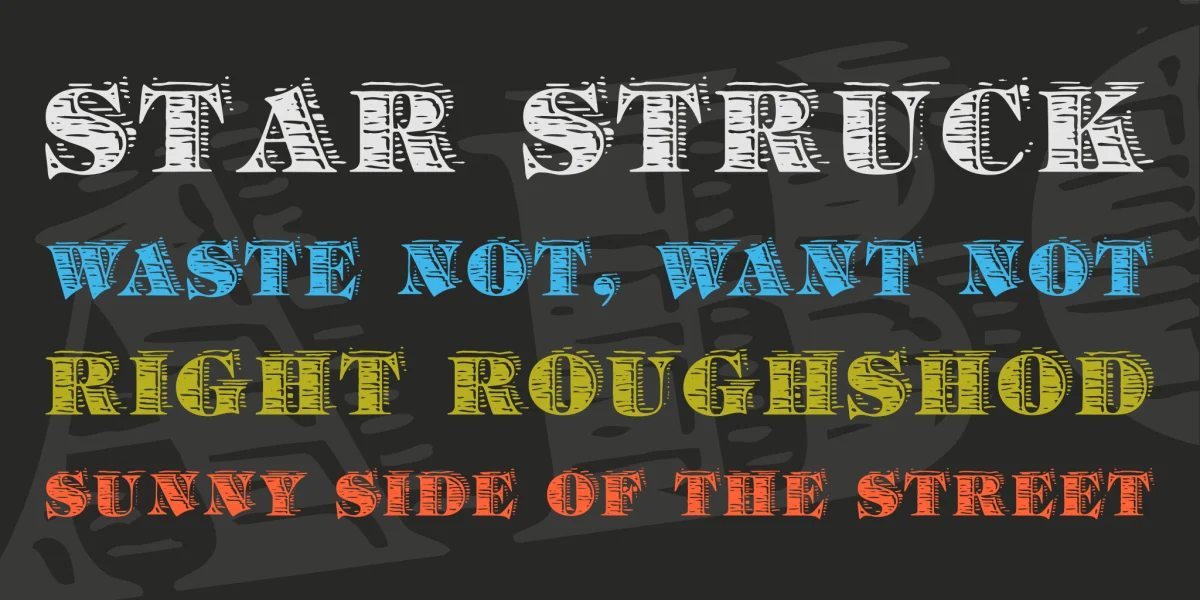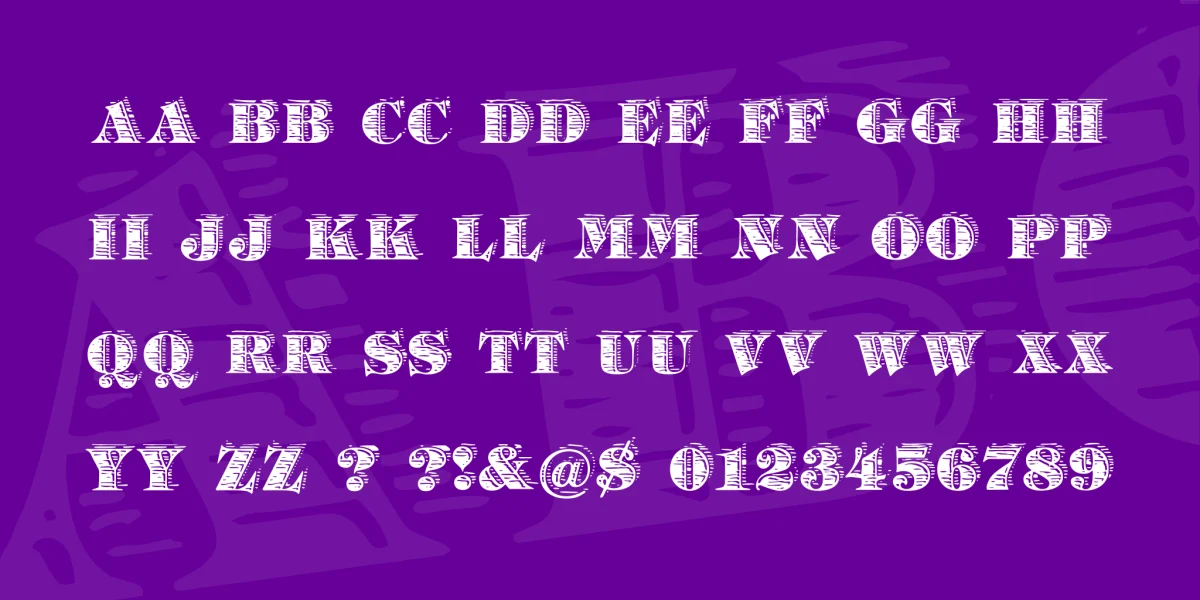
Barrelhouse is another font I've built for work - a Uresia mini-supplement called Caravel that I'm finishing right now. Caravel is about a small wooden sailing ship with haunted sails, with little pokes into the privacy of her crew and sidebars on everything from the looms of the sea witches of Dreed to the rules for an old Uresian mariner's drinking game. None of that make any sense? No worries; Barrelhouse carries the spirit of the thing in font form; the rest is just detail. Barrelhouse is a decorative all-caps font with a full keyboard character set.